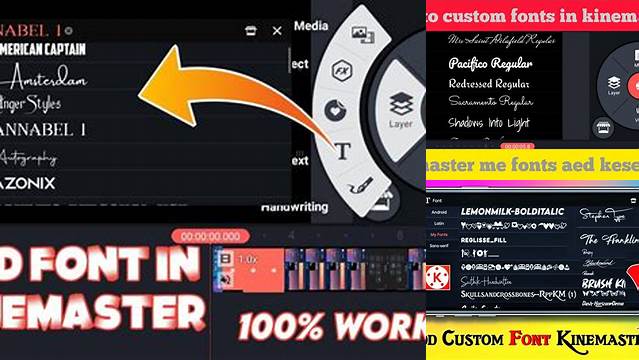
Hey guys! Are you ready to take your KineMaster video editing skills to the next level? One of the coolest ways to personalize your videos and make them truly stand out is by using custom fonts. You know, those fonts that aren't the same old boring ones everyone else uses! In this comprehensive guide, we'll walk you through everything you need to know about adding and using custom fonts in KineMaster, so you can unleash your creative potential and make videos that really pop.
Why Use Custom Fonts in KineMaster?
Let's be real, the default fonts in any video editing app can get a little stale after a while. They're functional, sure, but they don't always capture the unique vibe you're going for. That's where custom fonts come in! Using custom fonts in KineMaster allows you to:
- Enhance your brand identity: If you're creating videos for a business or channel, using custom fonts that match your brand's aesthetic can help you build a consistent and recognizable identity.
- Add personality and flair: Custom fonts can inject a ton of personality into your videos, whether you're going for a playful, elegant, or edgy look. Think about how different a movie poster looks based on the font they use – the same applies to your videos!
- Stand out from the crowd: Let's face it, in the crowded world of online video, you need to do everything you can to grab viewers' attention. A unique font can be that little something extra that makes your videos memorable.
- Improve readability: Sometimes the default fonts just aren't the most legible, especially on smaller screens. Custom fonts can help you choose options that are clear and easy to read for your audience. Consider how important clear text is, especially for tutorials or videos with a lot of on-screen information. You want people to actually read what you're writing!
Adding custom fonts in KineMaster is like giving your videos a stylish makeover. It’s a simple yet effective way to elevate your content and make it more engaging for your viewers. So, if you're serious about creating high-quality videos, this is definitely a skill you'll want to master. Trust me, once you start experimenting with different fonts, you'll wonder how you ever edited videos without them.
Finding the Perfect Custom Fonts
- Font Squirrel (www.fontsquirrel.com): This website offers a selection of free fonts that are licensed for commercial use, which is a huge plus if you're creating videos for your business. They also have a handy Font Identifier tool that can help you find a font if you have an image of it. Font Squirrel is the place to go when you need reliable fonts for your professional projects, without having to worry about licensing headaches.
- Creative Market (creativemarket.com): If you're willing to spend a little money, Creative Market offers a stunning selection of premium fonts created by independent designers. These fonts often have unique features and styles that you won't find anywhere else. It’s like browsing a curated boutique of fonts – you'll find some real gems here, but they might come with a price tag. Consider this your splurge-worthy font destination.
- MyFonts (www.myfonts.com): This is another great resource for premium fonts, with a huge collection from a variety of foundries. They also have a WhatTheFont tool that can help you identify fonts from images. MyFonts is the department store of the font world – it’s vast, diverse, and you can find pretty much anything you need, but you’ll need to navigate a lot of options.
When you're choosing fonts, think about the overall tone and style of your video. A playful video might benefit from a whimsical handwritten font, while a professional video might call for a clean and modern sans-serif font. Don't be afraid to experiment and try different combinations until you find something that feels just right. It’s like trying on different outfits until you find the perfect look – fonts can completely change the vibe of your video, so have fun playing around!
Custom fonts are a powerful tool for enhancing your KineMaster videos and making them stand out. By following this guide, you'll be able to easily add and use custom fonts to create videos that are visually appealing and engaging. So go ahead, unleash your creativity and start experimenting with typography! Trust me, it’s one of the best ways to take your videos from good to amazing. Happy editing, guys! Remember, the best videos are those that express your unique style and vision, and custom fonts are a fantastic way to do just that. So, get out there and create something awesome! Remember to choose fonts that resonate with your content's message and tone, and don't be afraid to step outside the box and try something new. With a little practice, you'll be a font-master in no time!